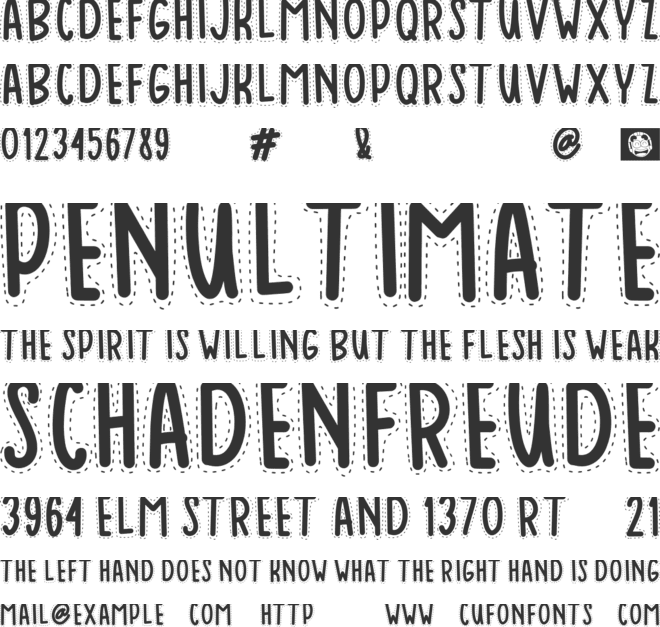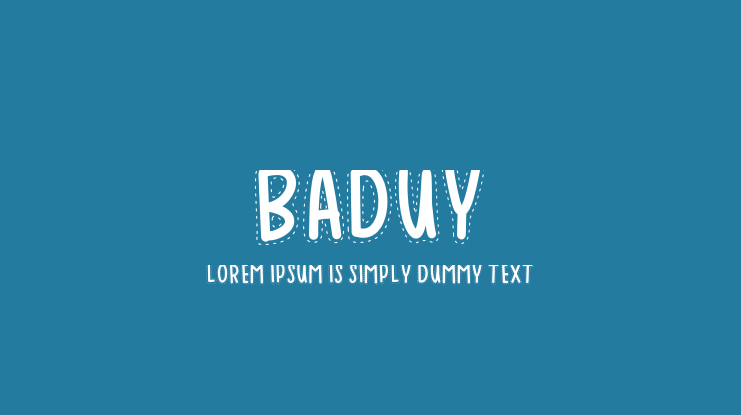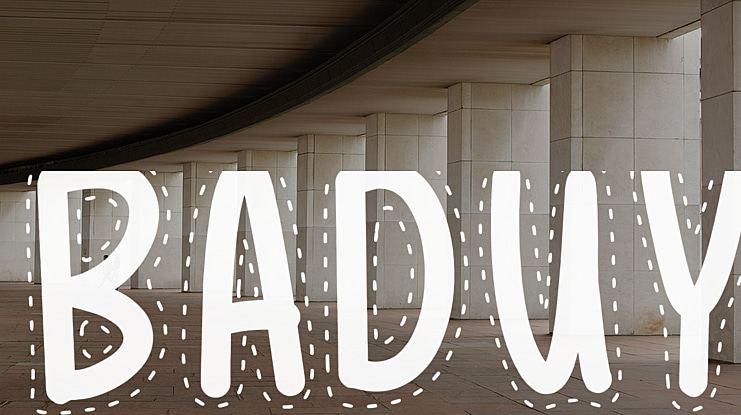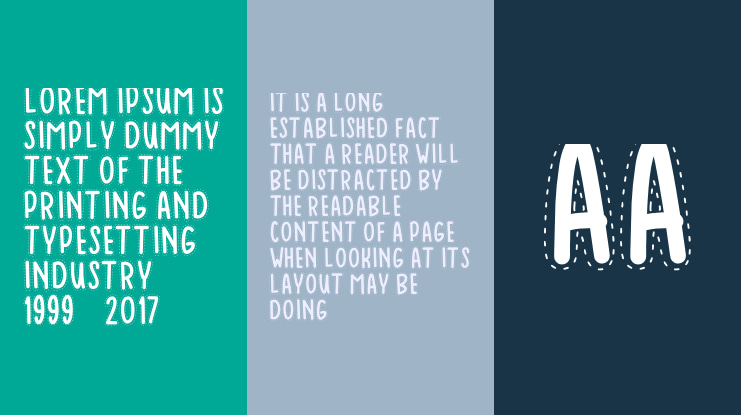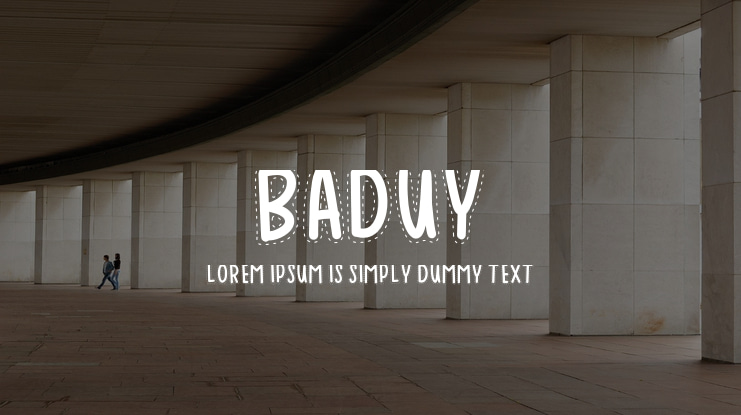
BADUY Font
Baduy is a fun display typeface. It will lift your design and add a cheeky touch to each of your creations. Use this font for your designs and explore its endless possibilities.